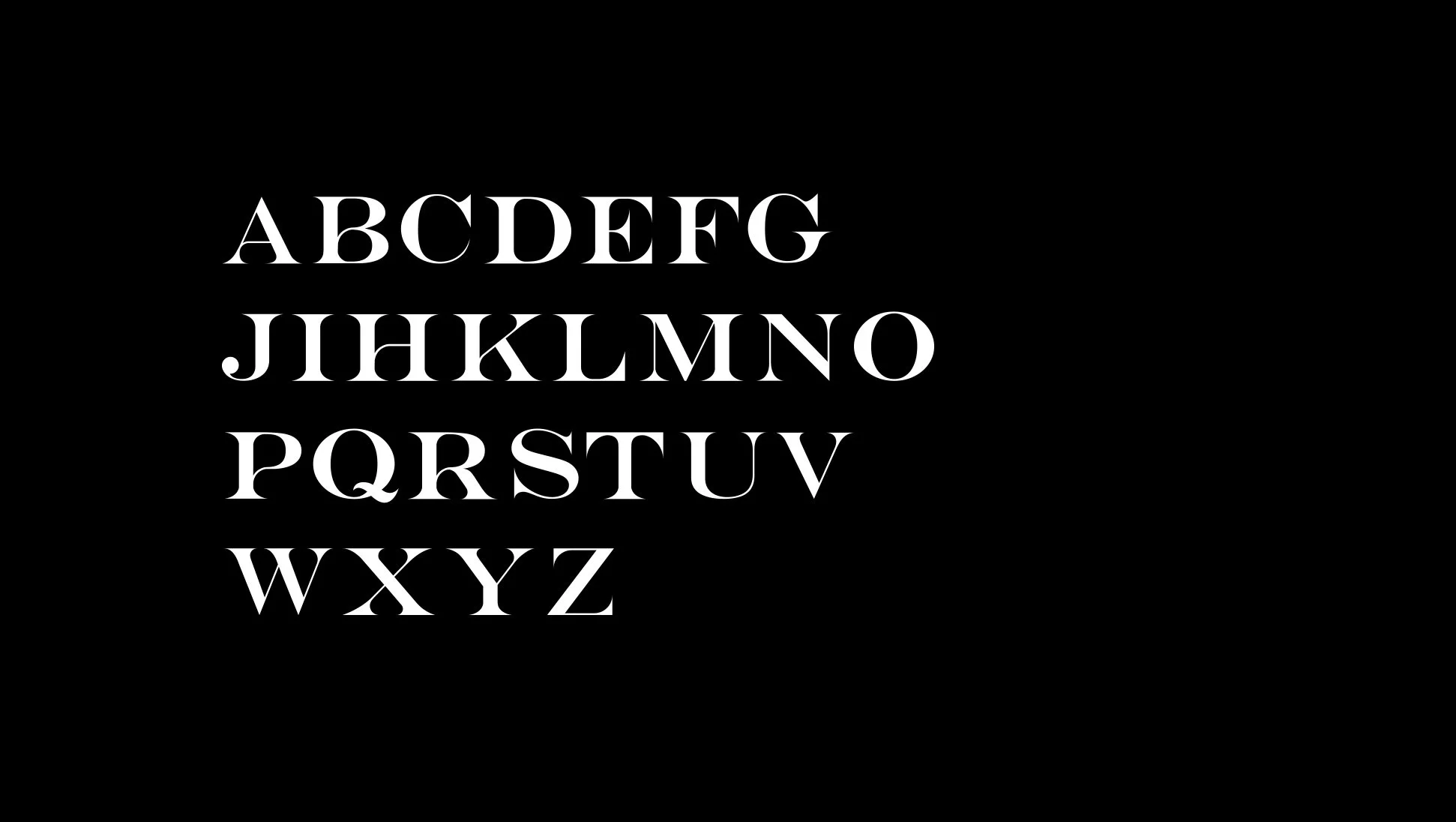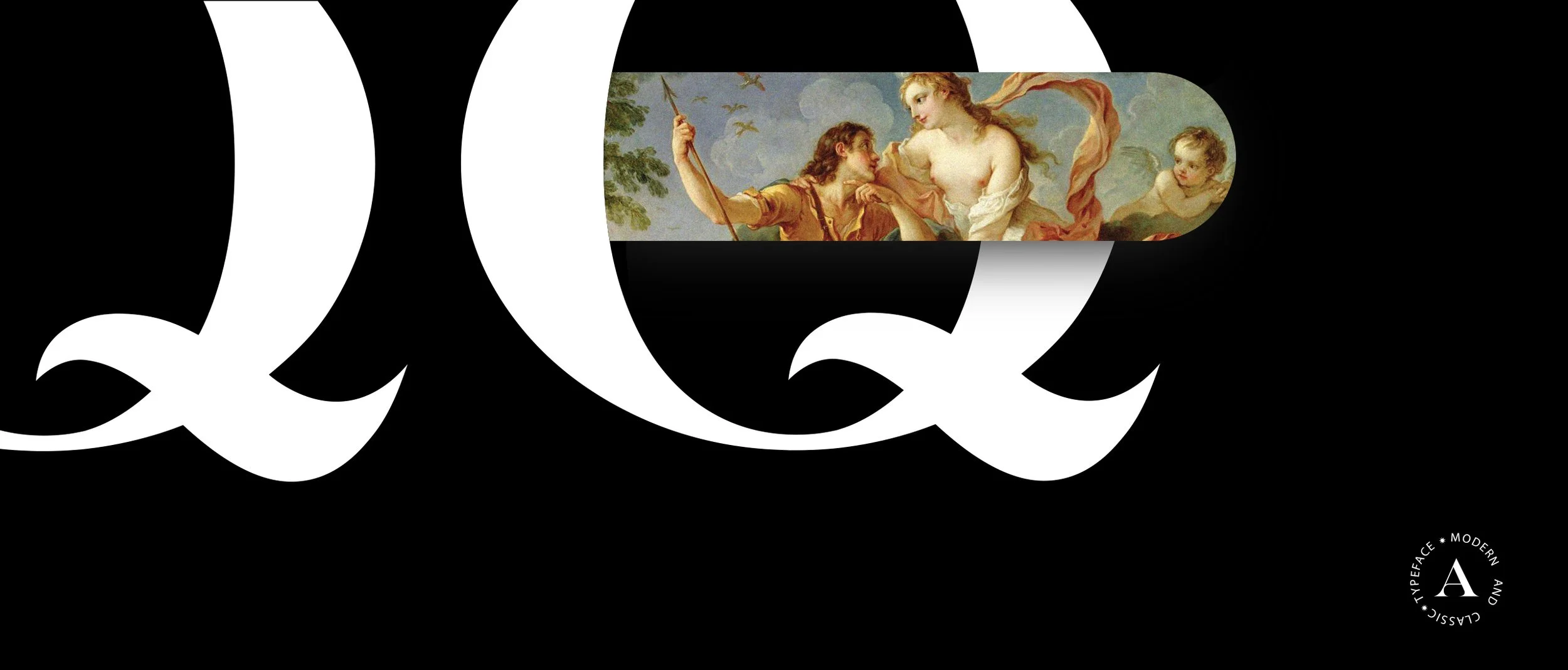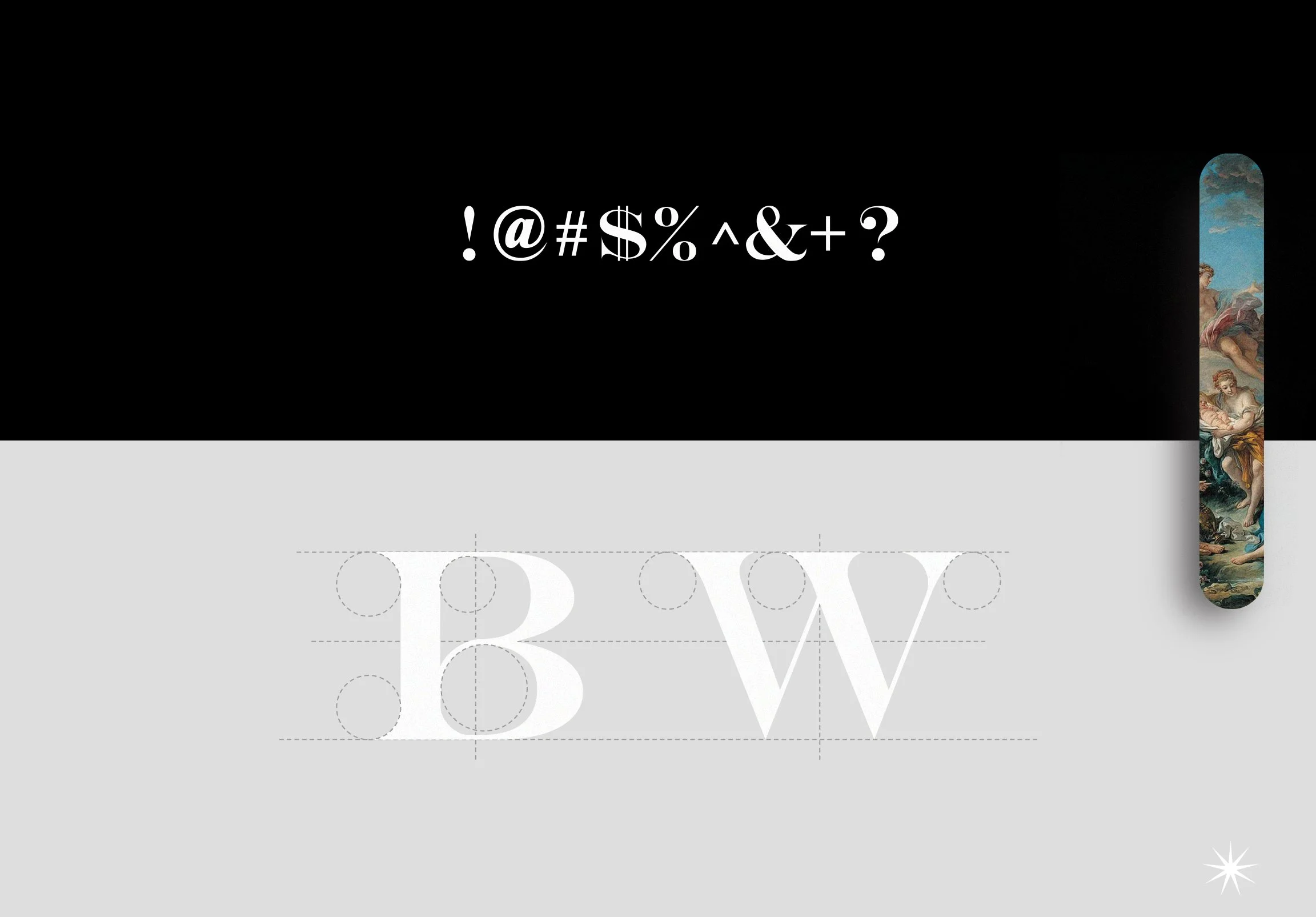
Arora Typeface
Display Serif Typeface
Arora is a bold and elegant display serif font designed to capture attention and add character to any visual project. Its sharp contrasts between thick and thin strokes create a strong sense of sophistication, while the refined serifs bring a touch of timelessness. Perfect for headlines, posters, editorial layouts, and branding, Arora combines modern flair with classical influences. Its striking presence makes it ideal for projects that demand personality and style.
Aurora is the name of the Roman goddess of sunrise whose tears turned into the morning dew. She was said to renew herself by traveling from East to West across the sky, announcing the arrival of the sun each dawn. Aurora is also associated with the scientific term for the Northern Lights, Aurora Borealis.